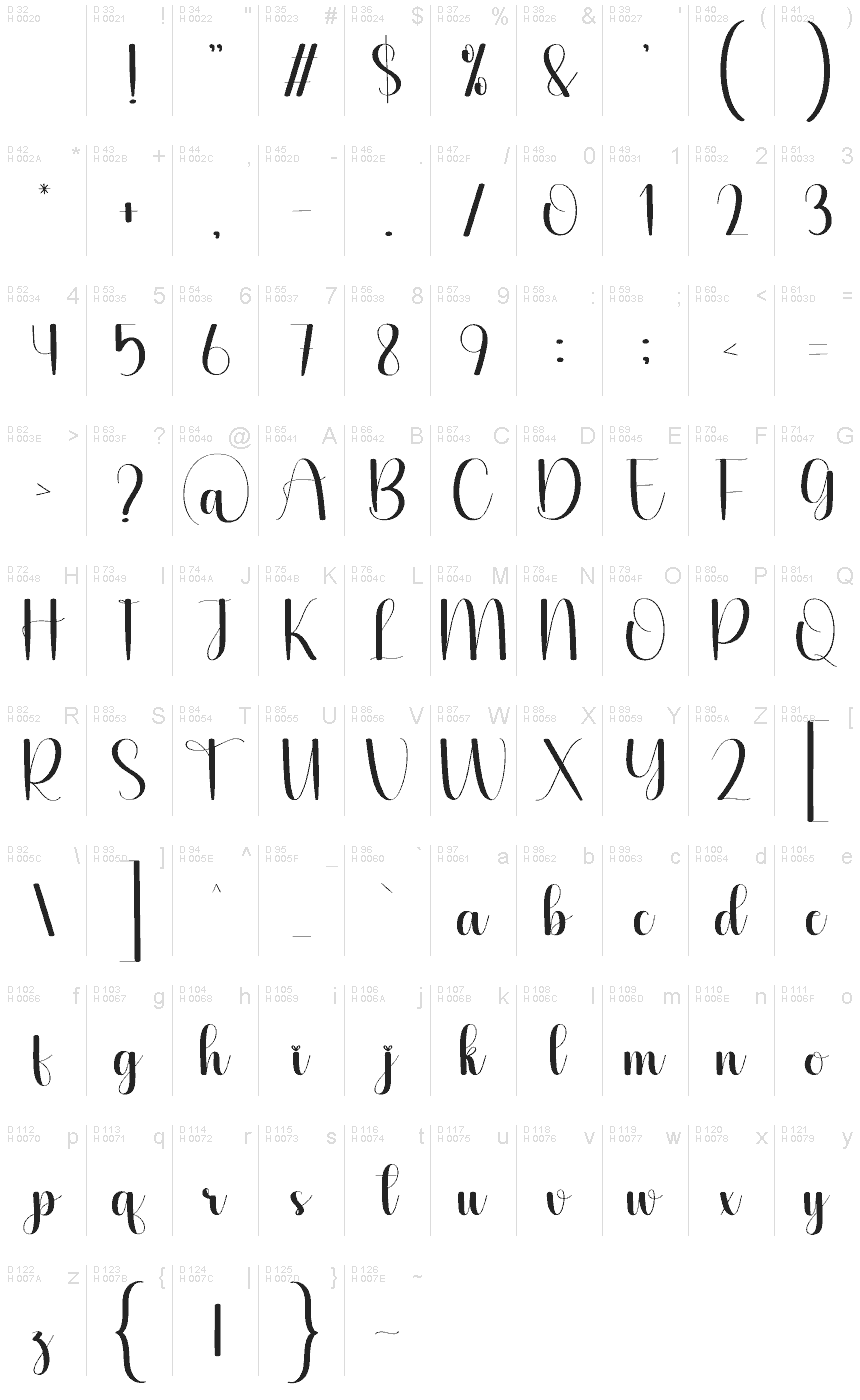
Angry
Angry font is an expressive and artistic handwritten font designed by Scratchones. Its modern flowing letters have that unique artistic flair that distinguishes the text from the rest. This free calligraphy font contains graceful curves with smooth elegant contrast which makes for a remarkable appearance.